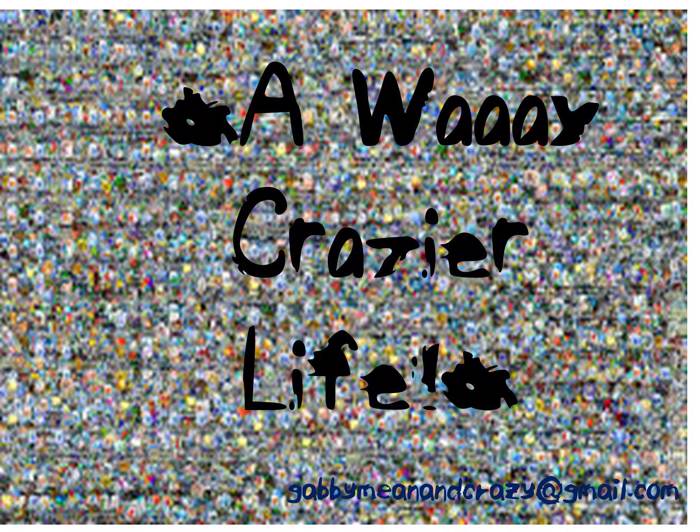
ELFAWaaayCrazierLife Font
About ELFAWaaayCrazierLife Font
Hi again! This is my second font, but although it looks worse, I still want to share it with you. Enjoy! :)
Geez, it's so terrible! 😞 😎